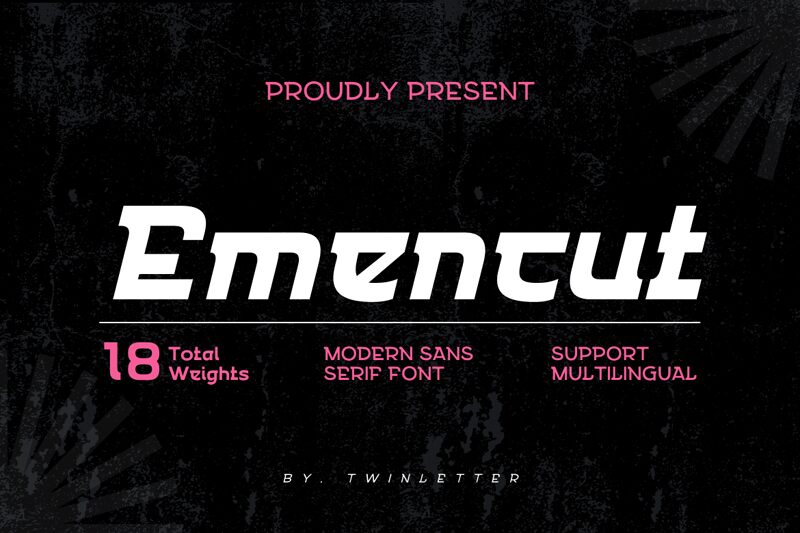
Emencut-BoldSlanted
Emencut Bold Slanted font by Twinletter is a free modern display font with italic characters that showcase geometric influences and a contemporary feel. Slightly compact, its sans-serif characters are characterized by sharp angles and interesting character shapes. Designers who enjoy combining unornamented styles with ornamental elements will find this typeface to be of immense value.
Multiple design projects can take advantage of this resource including websites, phone covers, magazines, flyers, social media banners or posts, blogs, posters, and book covers. Such versatility makes it suitable for different types of branding projects related to apparel products and plenty more.